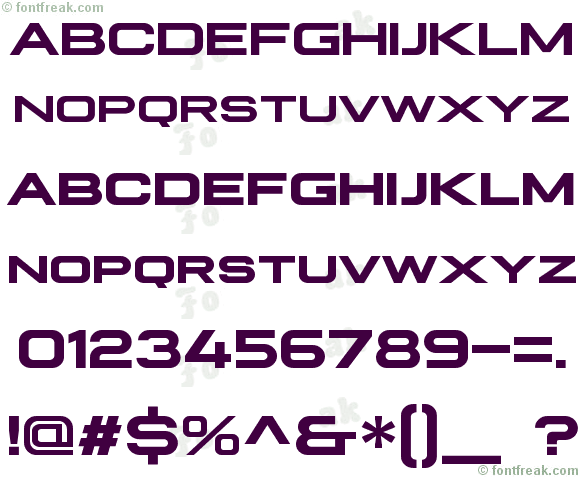
Plateia Bold
About Plateia Bold
Plateia Bold is a striking sans-serif font designed by Steve Gardner, offering a modern and bold aesthetic perfect for various design applications. This font is characterized by its strong stroke weight and minimal contrast, creating a sense of stability and clarity. The clean lines and geometric forms ensure readability, making it an excellent choice for both digital and print media. The spacing between characters is well-balanced, contributing to its overall legibility and visual appeal.
Ideal for a wide range of use cases, Plateia Bold shines in environments where clear communication is paramount. It works beautifully for headlines in websites and blogs, drawing attention while maintaining professionalism. Its assertive presence makes it a perfect fit for restaurant menus, giving a modern twist to traditional formats. Additionally, the font is great for promotional materials, such as flyers and brochures, where impactful text is essential. Designers can also leverage Plateia Bold for branding projects, ensuring logos and brand messages are memorable and distinctive.
Targeting graphic designers, small business owners, and content creators, Plateia Bold offers versatility and style, making it a go-to choice for anyone looking to make a statement in their projects. The font’s contemporary design resonates well with audiences seeking modernity and sophistication in their visual communications.
Author Steve Gardner